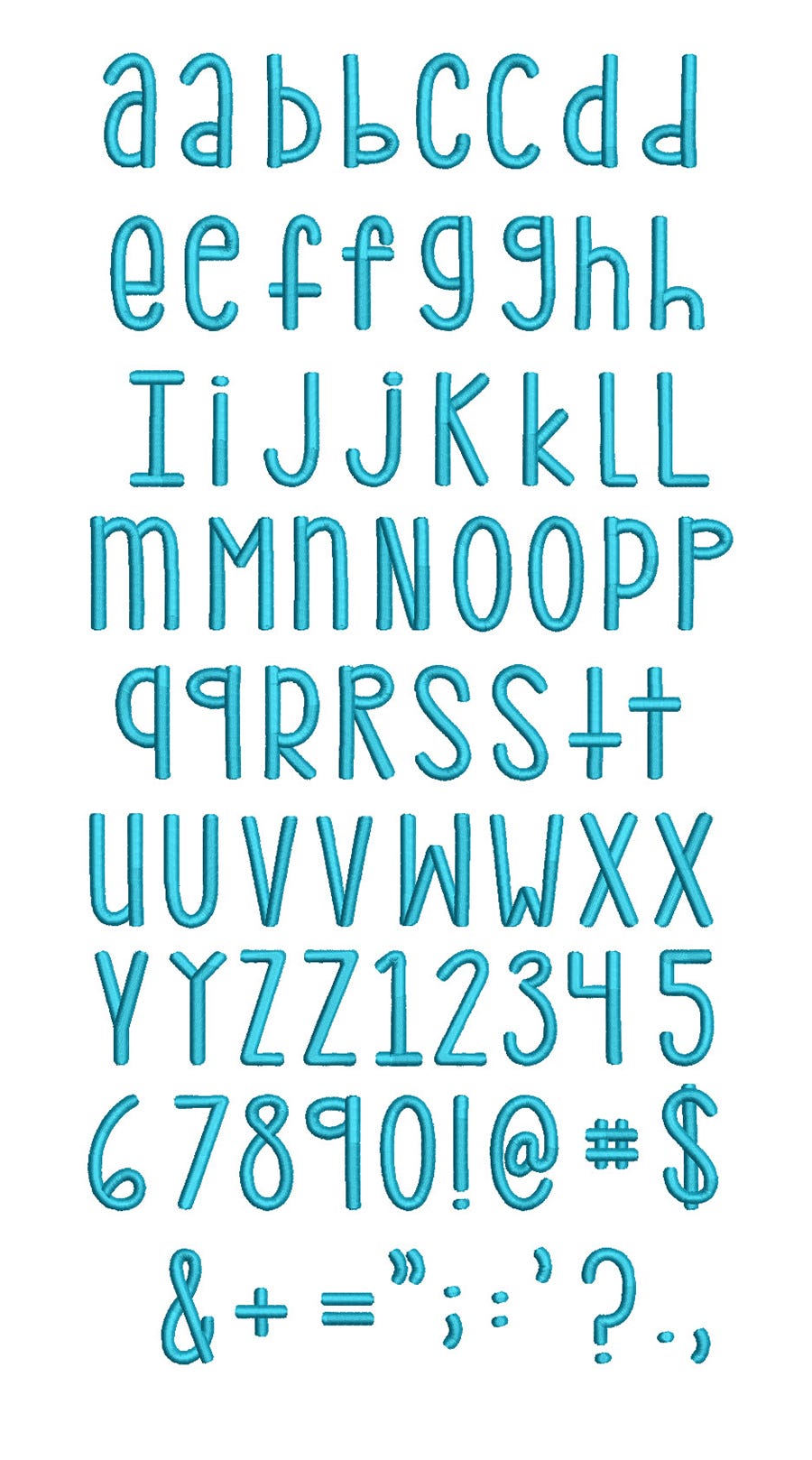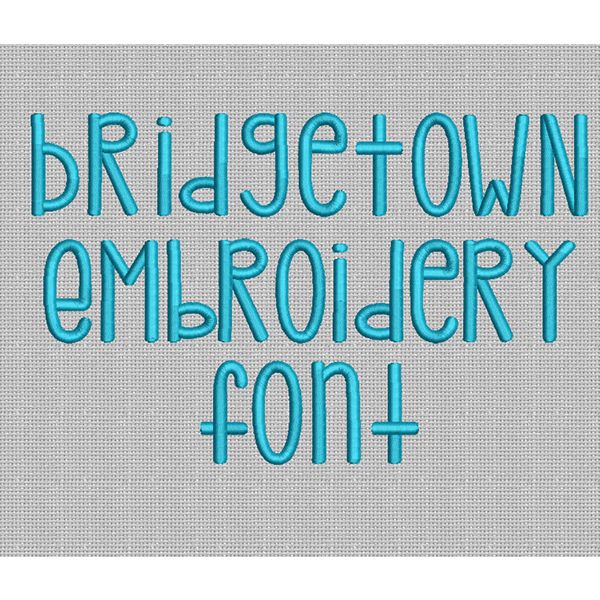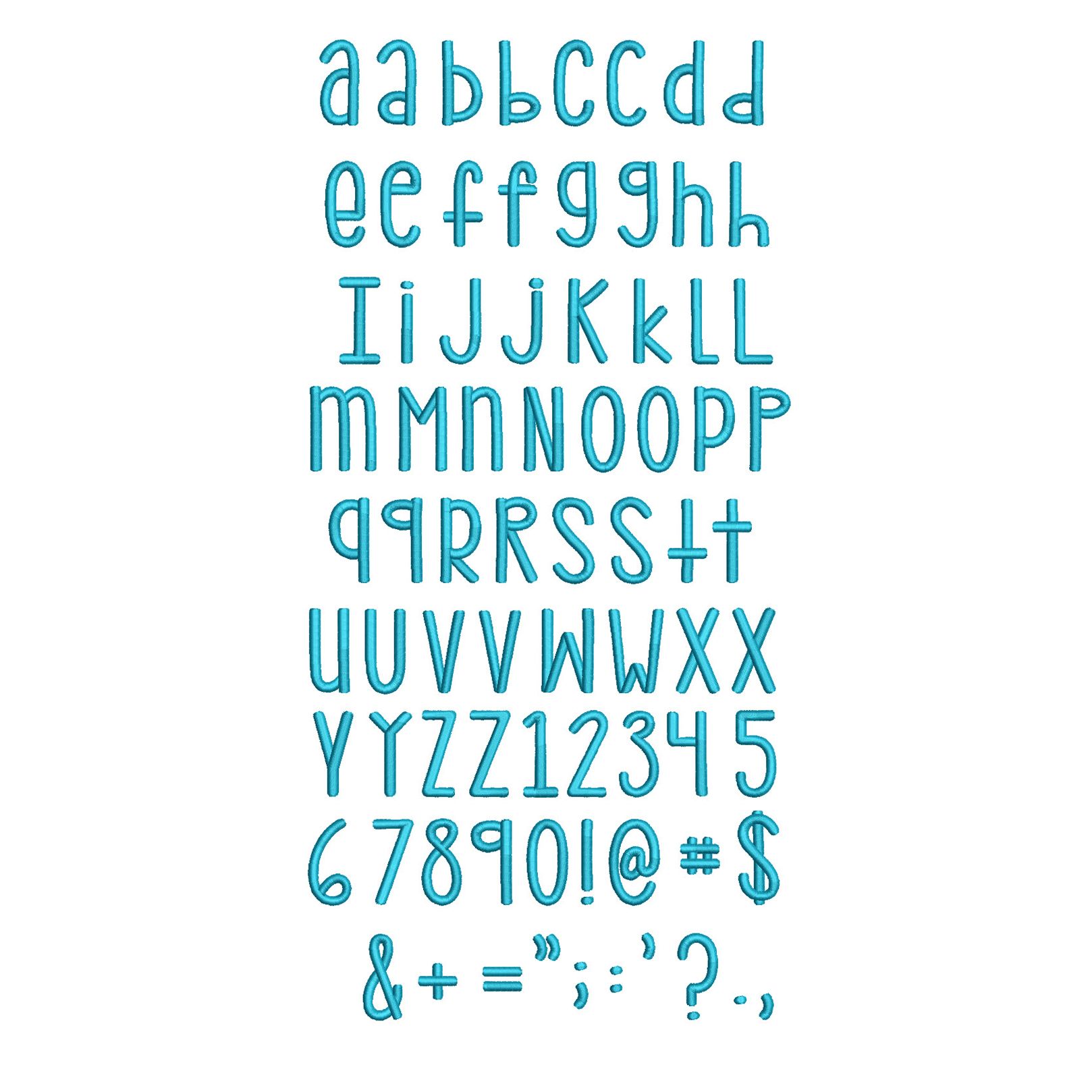
Bridgetown Satin Stitch Embroidery Font
Fun and whimsical...use the upper and lowercase letters interchangeably for a fun and funky look!  All of our font alphabets are 100% manually digitized to bring you maximum stitch quality.